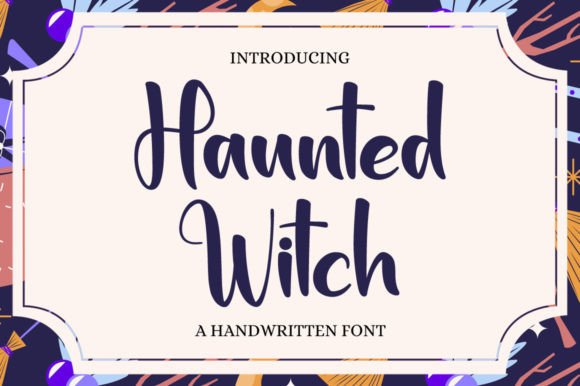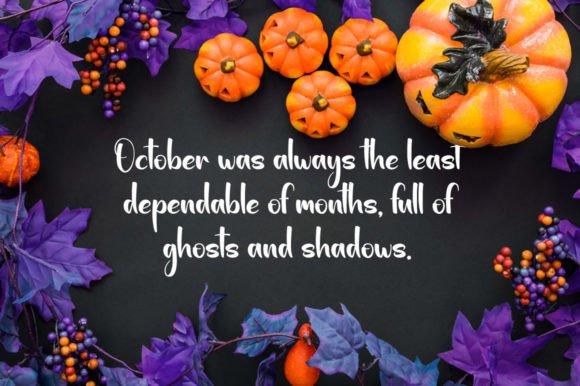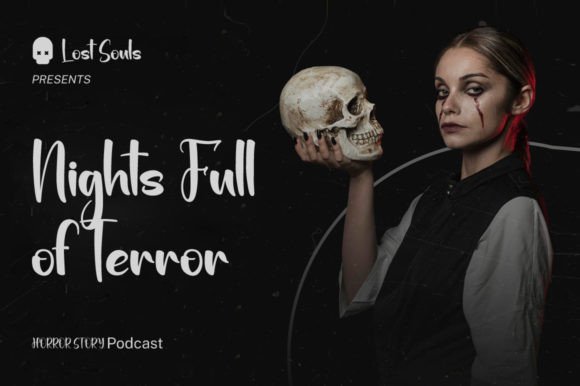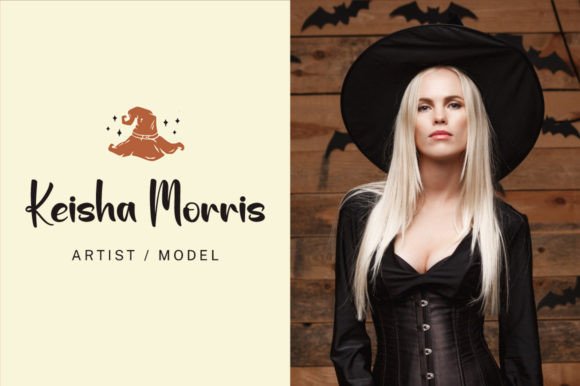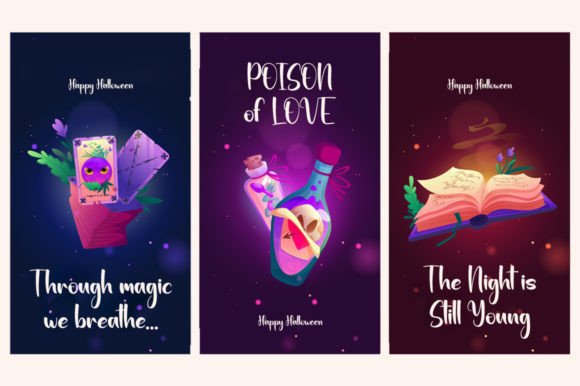
Haunted Witch Font
About Haunted Witch Font
Haunted Witch is a fun and smart-looking handwritten font. It looks ravishing on invitations, thank you cards, quotes, greeting cards, logos, business cards, and every other design which needs a customized touch.